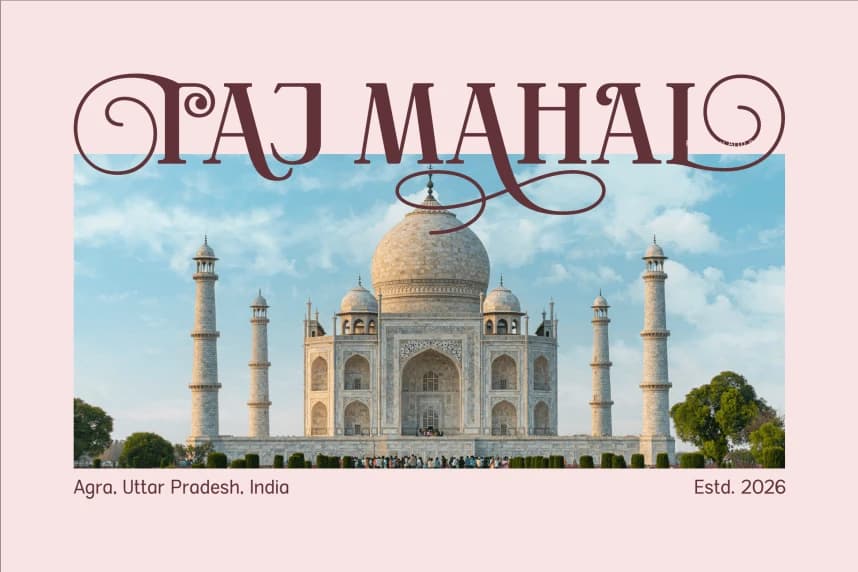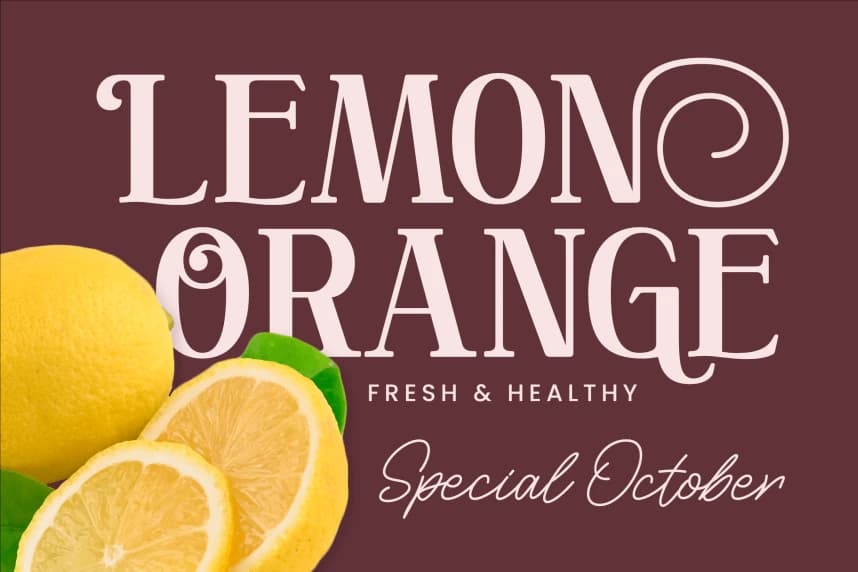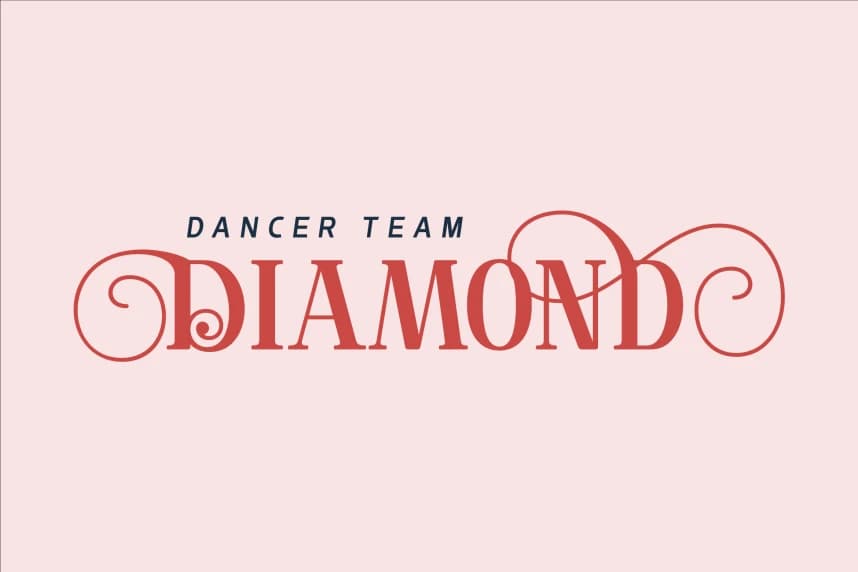
Mithiya Font
Mithiya Font is a stylish serif font with elegant swashes and luxurious curves that bring a timeless feminine touch to every design. Crafted with beautiful ornamental details, this font is perfect for branding, wedding invitations, logos